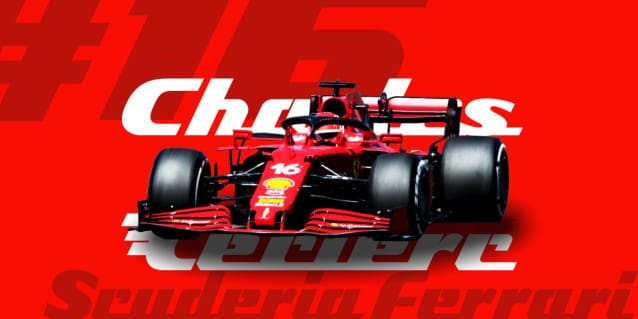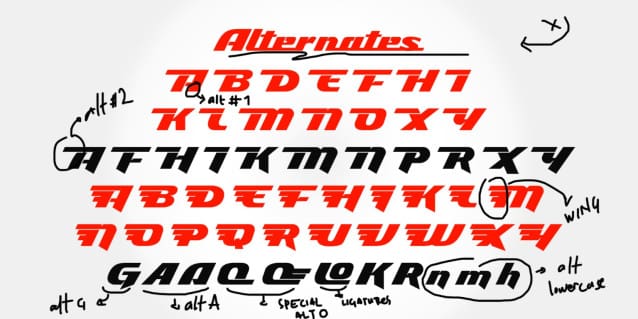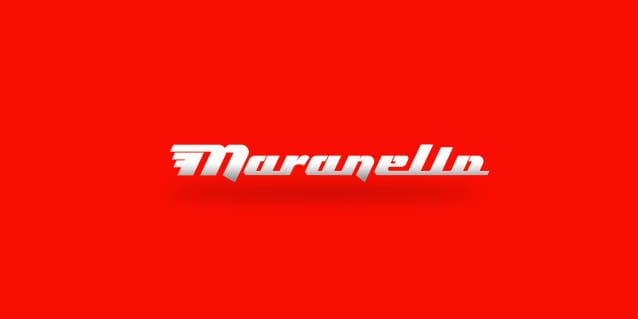
Maranello Font
Maranello Font an awesome sports fonts, modern cutouts, and dynamic slant. Ideal for fast car racing sports titles, running matches, cycling, automotive game logos and monograms or other modern dynamic text.
Maranello compare favorably with legibility and size, creating the effect of power and speed. Designed as a fast and dynamic font, but with a slightly different font design, check it out and grab it right away.